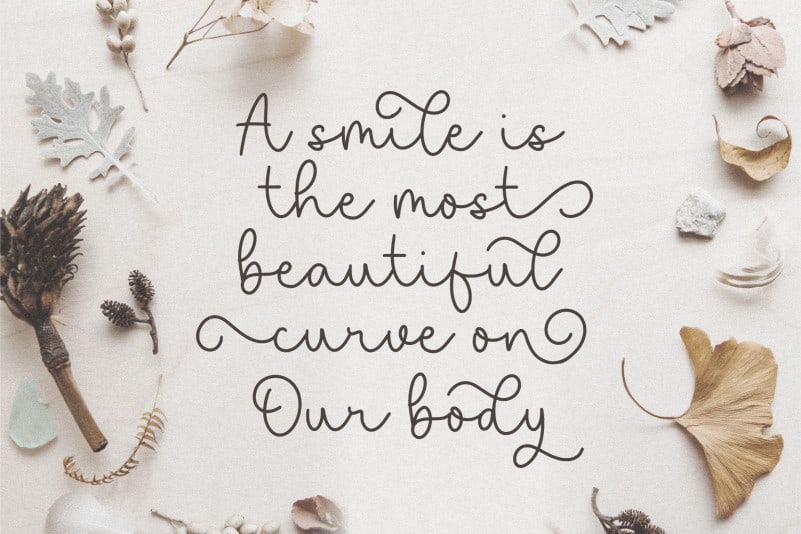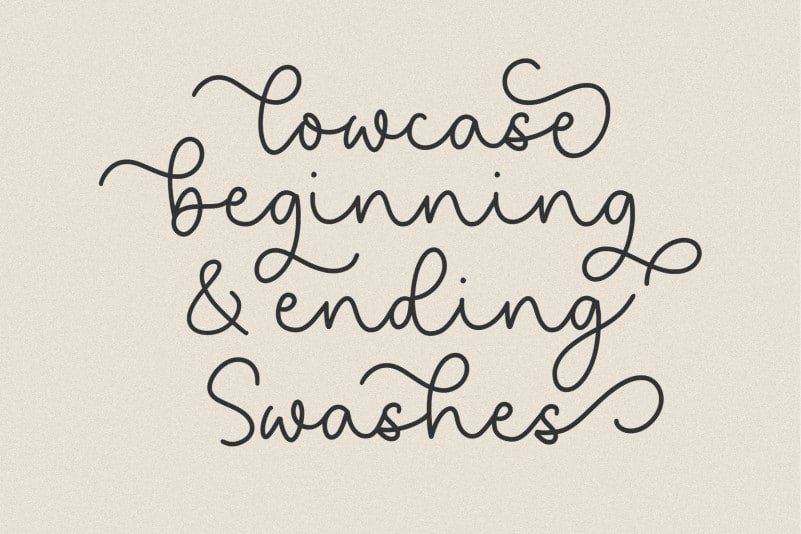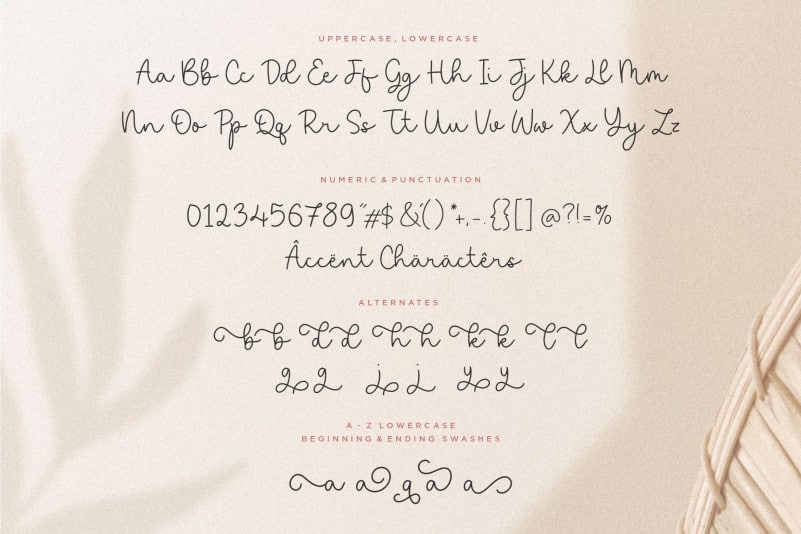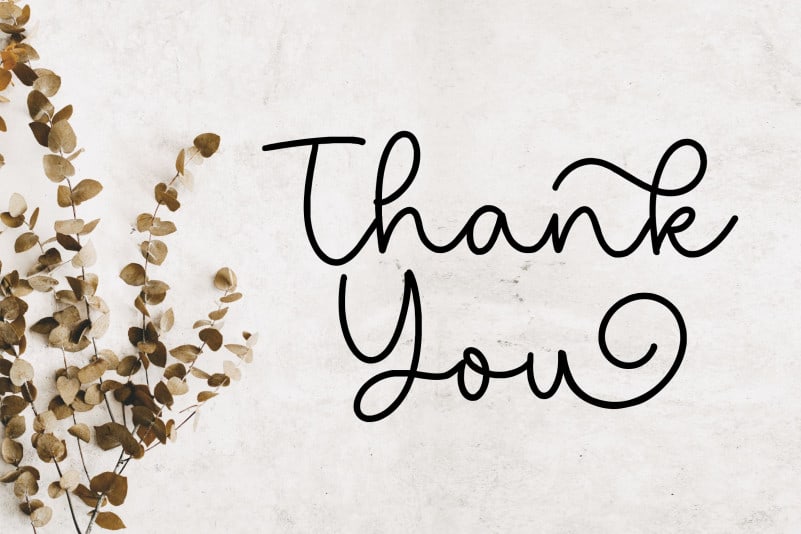
Saylora Script Font
Introducing by Balpirick Studio.
Proudly Present, Saylora Script Font.
Saylora is a Beautiful Monoline Script Font.
Saylora is perfect for product packaging, branding project, megazine, social media, wedding, or just used to express words above the background.
Alternates & Lowercase Ending Swashes.